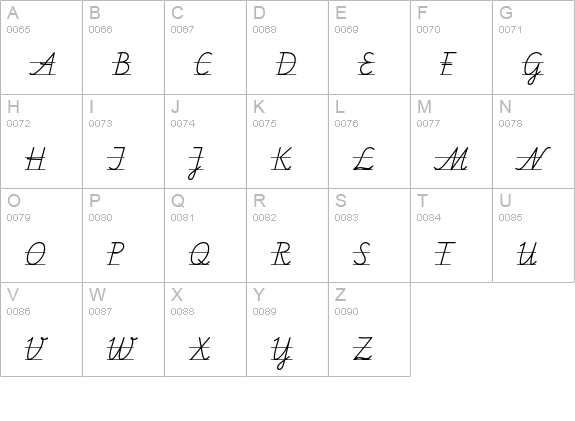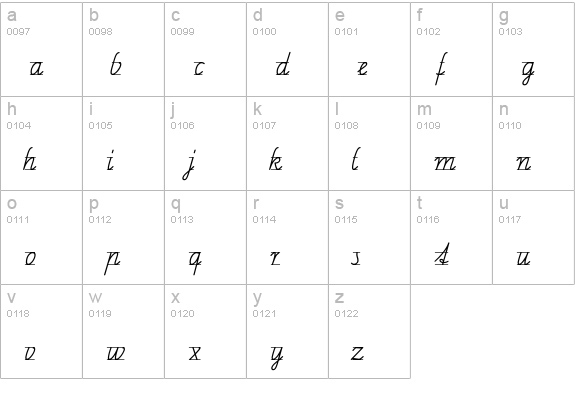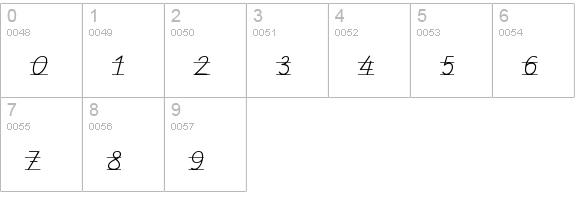
SchulschriftC-L2 Font Details
SchulschriftC-L2 font is a beautiful and elegant typeface designed specifically for educational purposes. With its clean and legible design, this font is perfect for creating worksheets, handouts, and educational materials for students of all ages. The SchulschriftC-L2 font features a classic look with a modern twist, making it versatile for various educational settings. Its clear and well-defined characters ensure easy readability, making it an ideal choice for both teachers and students alike. One of the best features of the SchulschriftC-L2 font is that it is freely available to download at FontsMarket.com. This means that you can easily access this amazing font without any cost, making it a perfect choice for teachers and educators on a budget. Whether you are creating lesson plans, worksheets, or educational presentations, the SchulschriftC-L2 font is sure to leave a lasting impression. Its timeless design and readability make it a valuable asset in any educational setting. So, why wait? Visit FontsMarket.com today and download the SchulschriftC-L2 font for free!